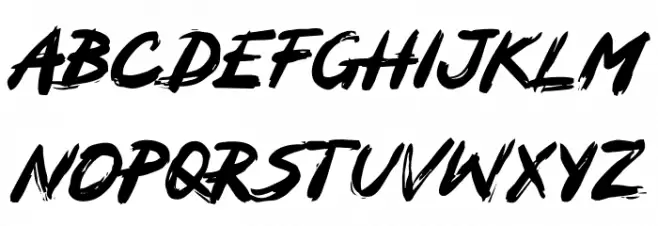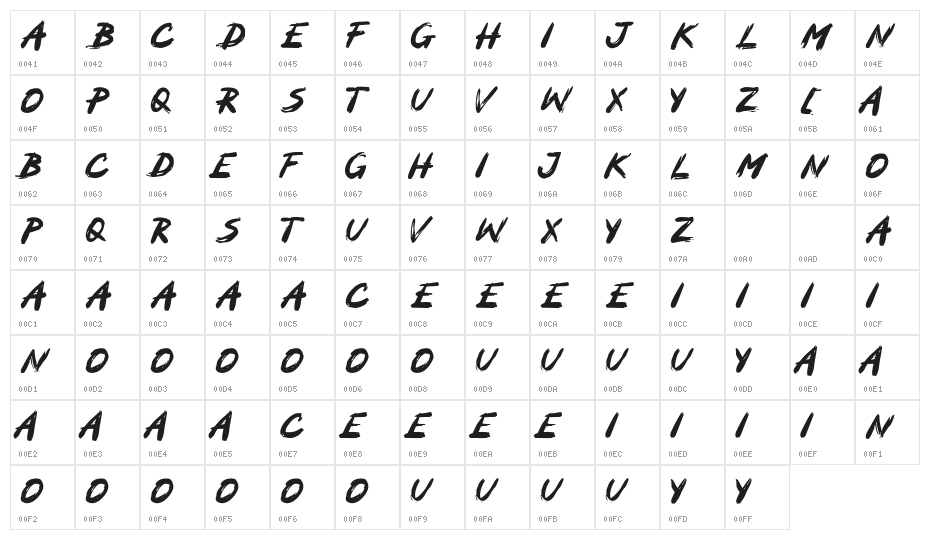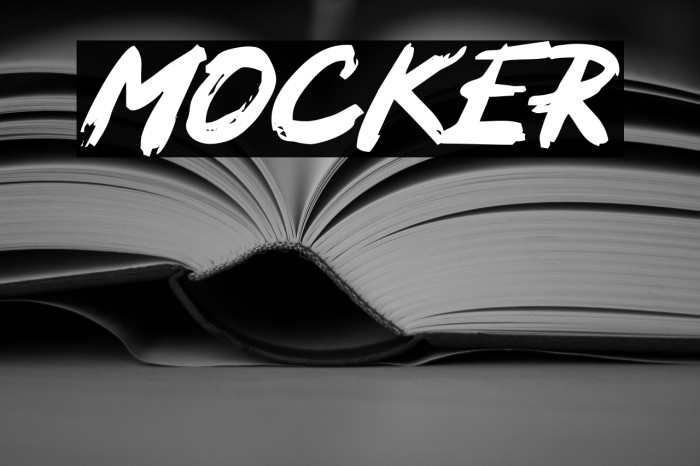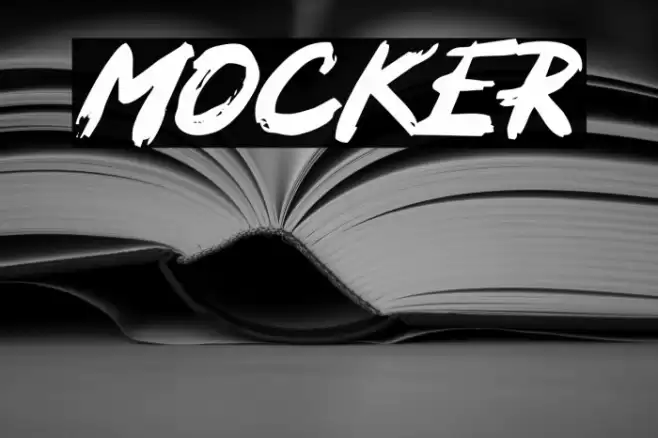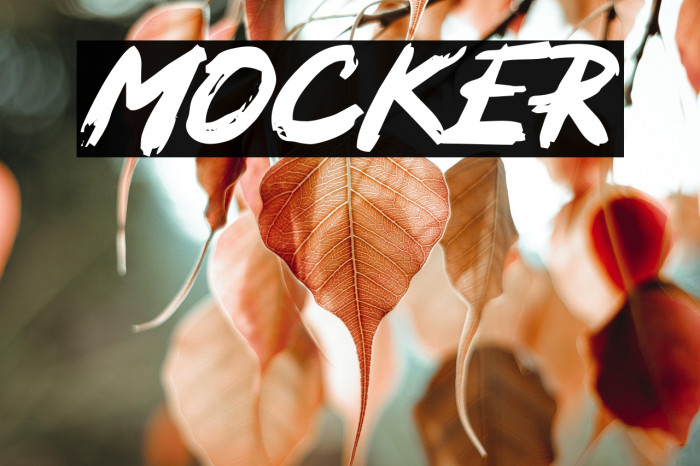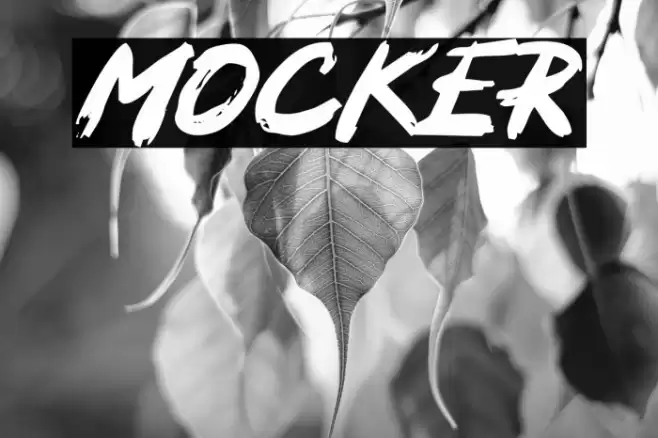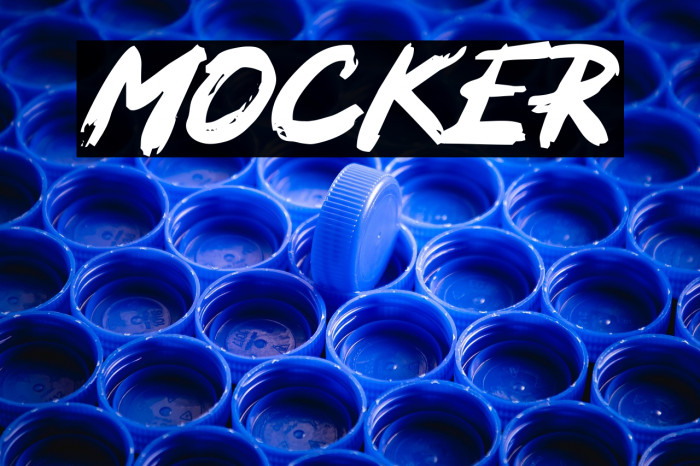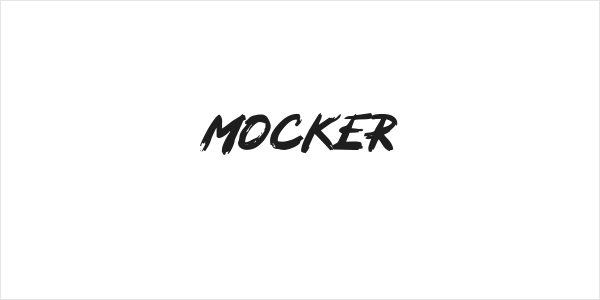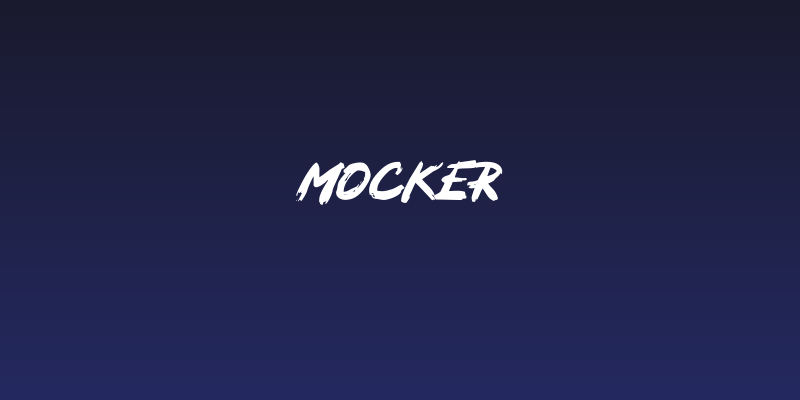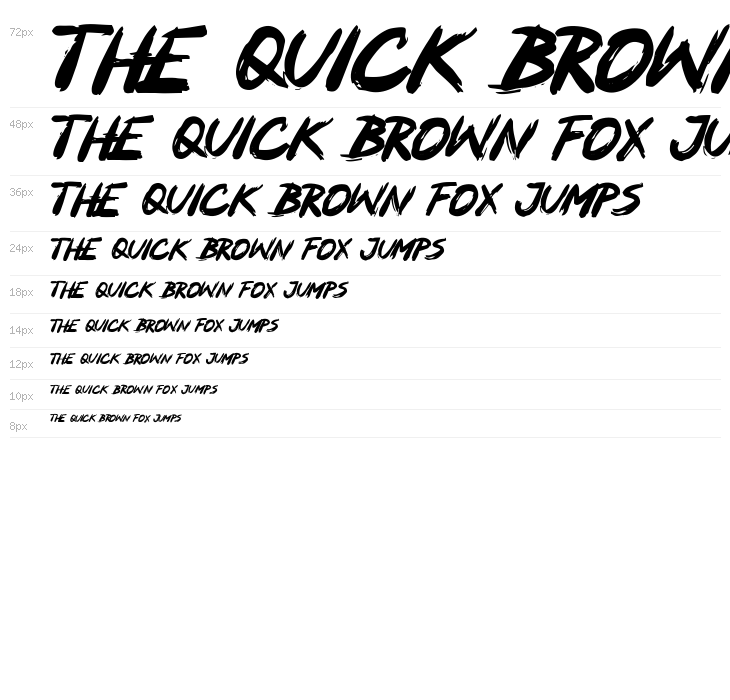
This font features a bold, dynamic style with a brush-like appearance, giving it a sense of movement and energy. The strokes are thick and uneven, creating a textured look that adds a handmade feel. The letters are slightly slanted, enhancing the impression of speed and fluidity. This font is highly legible despite its artistic flair, making it suitable for impactful designs. The uppercase and lowercase letters maintain a consistent style, with the uppercase being more pronounced. The numbers and special characters follow the same energetic design, ensuring a cohesive look across all text elements.
| Proposed Projects | Ideal for posters, logos, branding, and any design requiring a bold, artistic touch. |